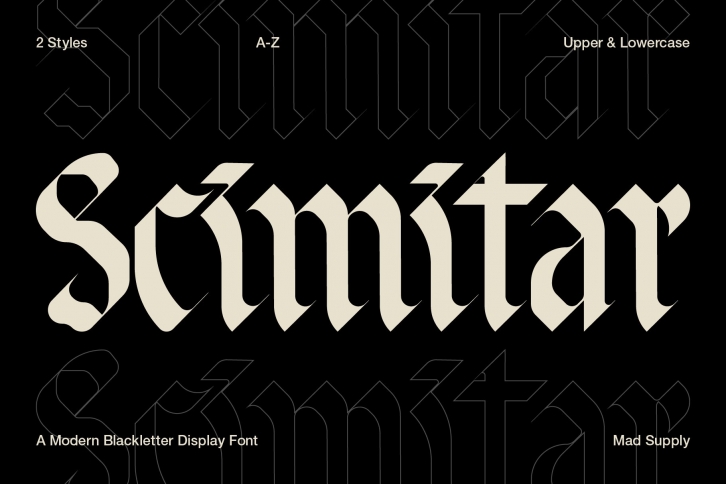
Scimitar is a modern, bold blackletter A-Z display font with acid graphic vibes. Includes 2 styles, "Sharp" and "Soft" in both regular, bold and italics. Use fo